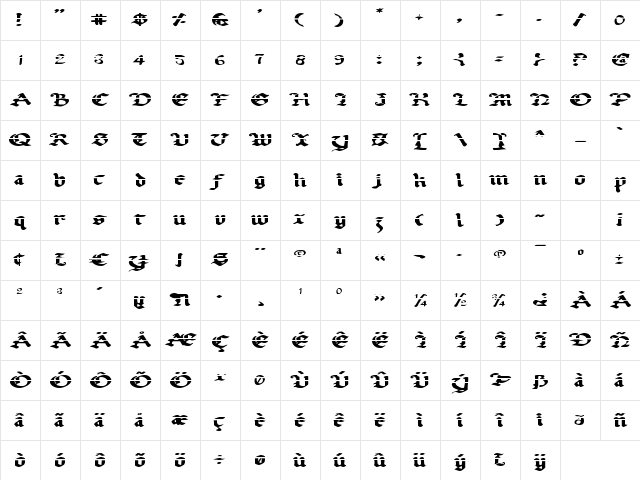
Uberh Lazar Expanded Lazar Expanded
Style: Lazar Expanded
Design Context for Uberh Lazar Expanded
Uberh Lazar Expanded is a composed and adaptable typeface that performs quietly and consistently across a wide range of design contexts.